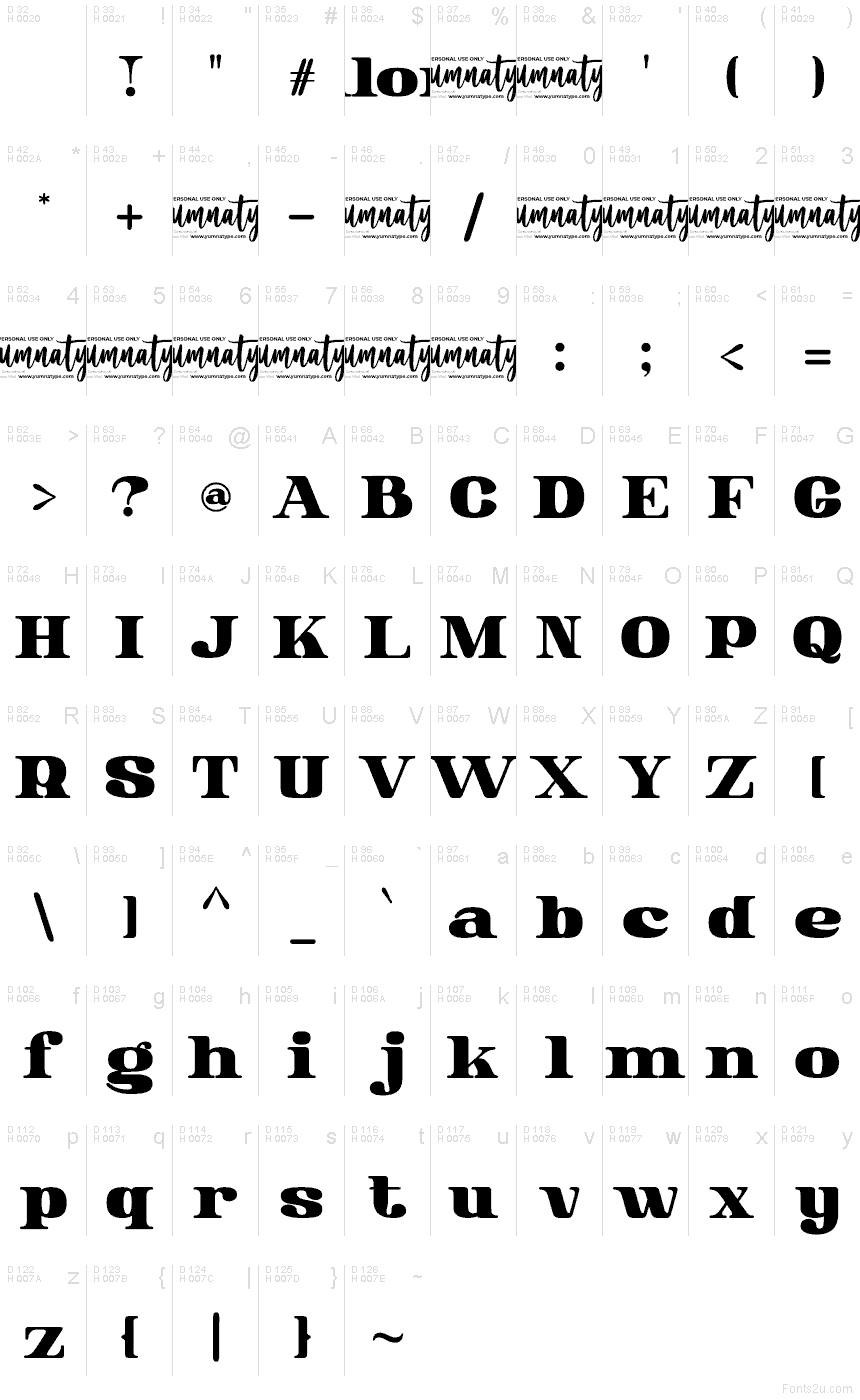
Collonie Personal Use
Collonie font by Yumna Family is a free serif typeface with bold, inky slabs and a chunky silhouette that hits the page like a stamped logo. The letters feel carved rather than drawn—broad verticals, compact proportions, and thick, almost blocky serifs that lock together in a dense rhythm. It has a slightly retro, poster-like presence, giving headlines a tactile, printed-on-cardboard weight that’s hard to ignore.
Using Collonie, you get a serif that behaves like a heavyweight branding tool—strong, confident, and tightly spaced for maximum impact. This free font shines on packaging, logotypes, editorial titles, event posters, book covers, and bold social graphics where you want attitude more than politeness. Pair it with a clean, light sans for body copy to let Collonie’s dark, solid shapes take center stage.